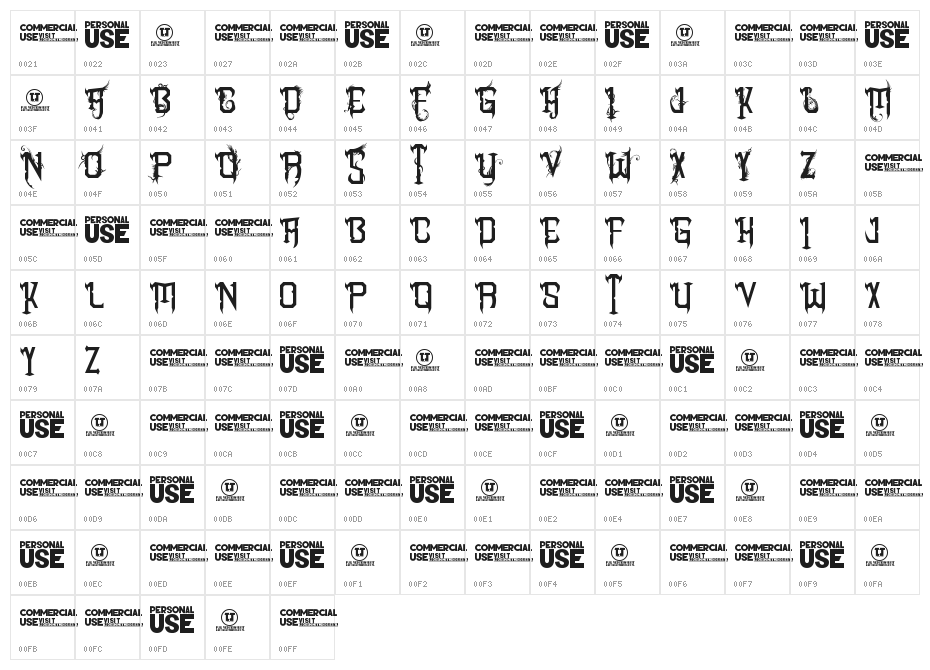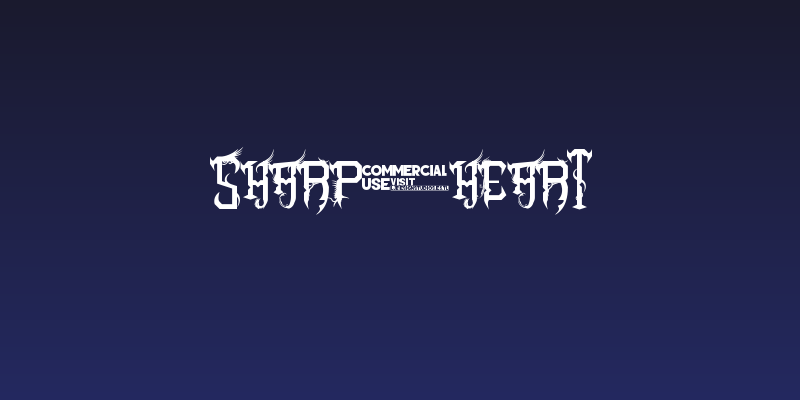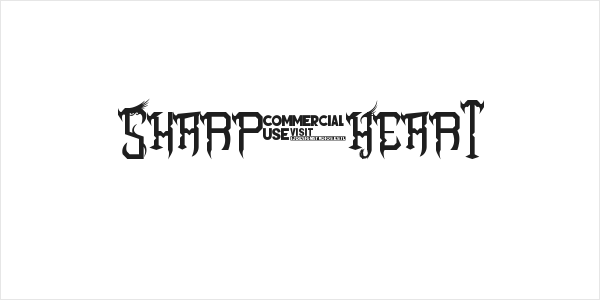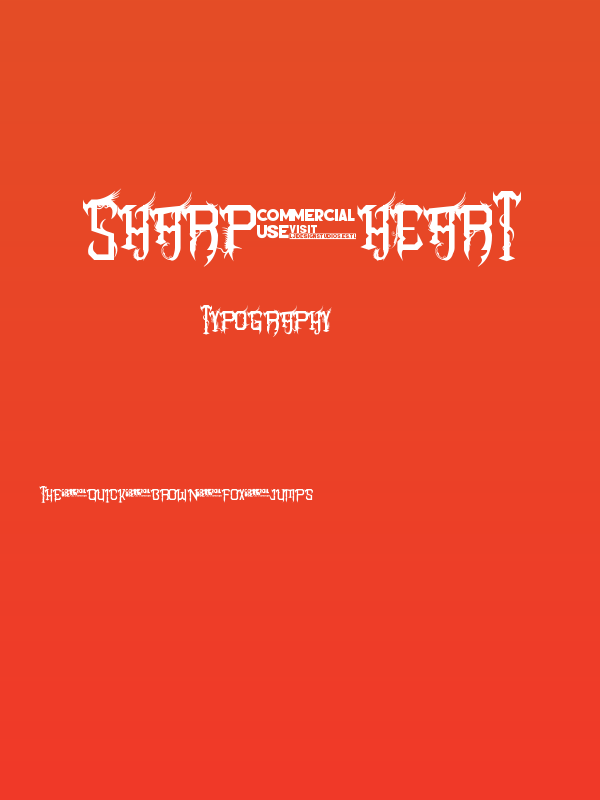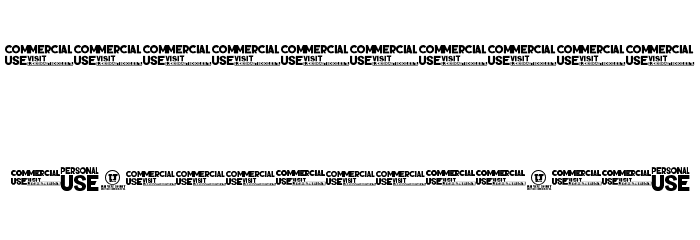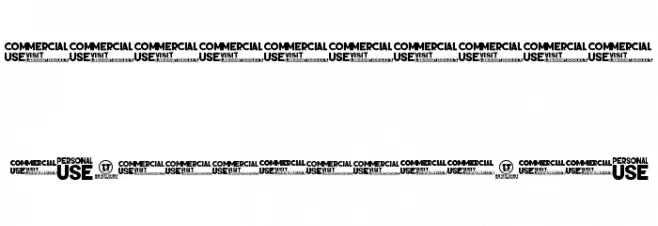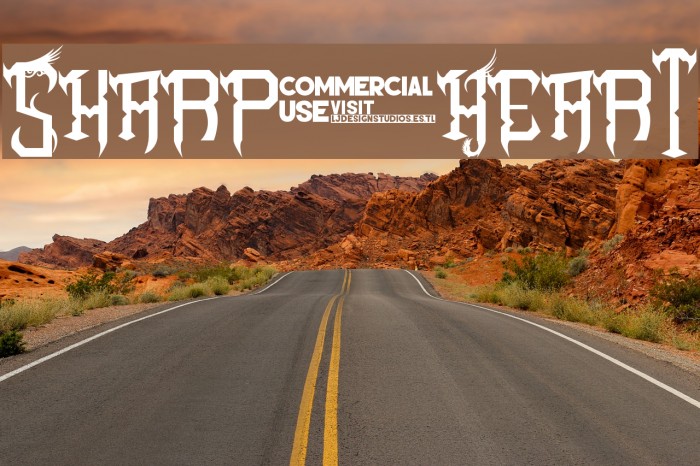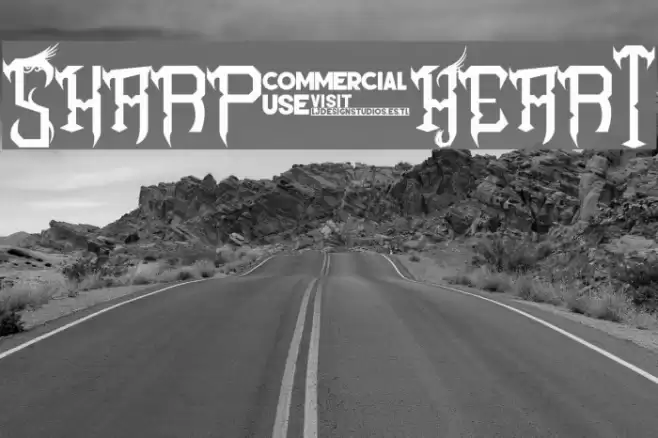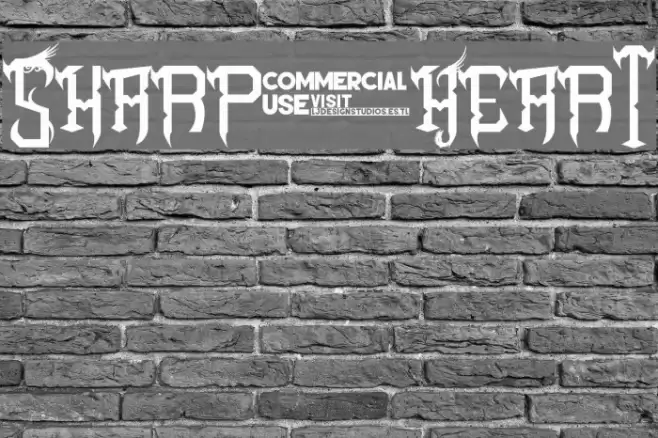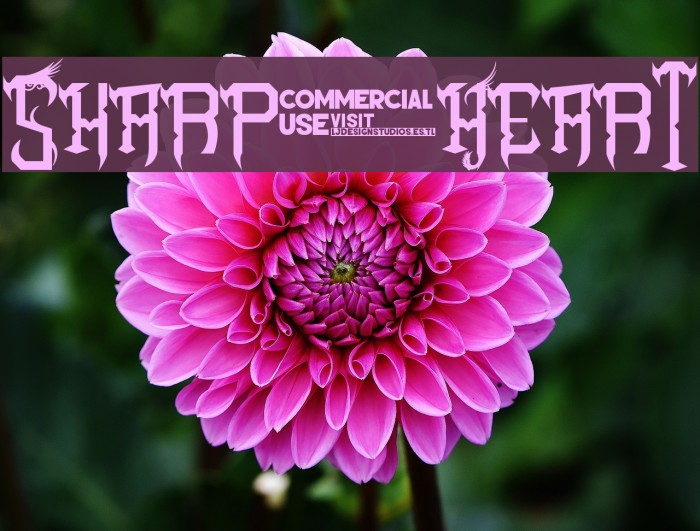
Sharp Heart Font
Sharp Heart Description
This font features a bold and intricate design with sharp, angular edges and decorative elements that resemble thorns or flames. The uppercase letters are highly stylized, with dramatic flourishes that extend beyond the main body of each character, creating a striking and aggressive appearance. The lowercase letters maintain a similar aesthetic, though slightly more subdued, allowing for better readability. The overall design is reminiscent of gothic or tattoo art, making it ideal for projects that require a bold and edgy statement. The font's unique style is both eye-catching and memorable, making it suitable for a variety of creative applications.
| Overall Style | Gothic, Decorative |
| Proposed Projects | Ideal for band logos, album covers, tattoo designs, posters, and any project needing a bold, edgy aesthetic. |